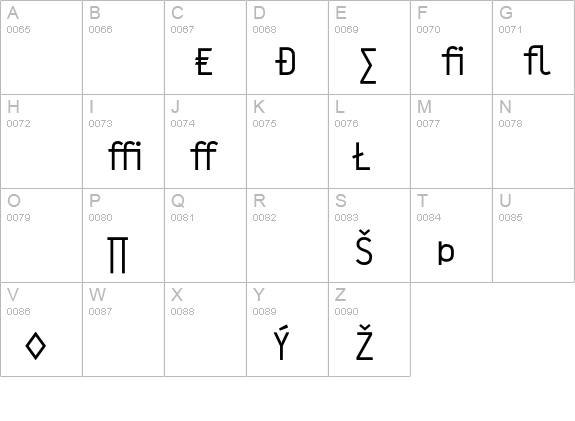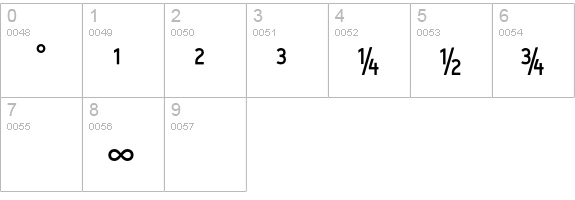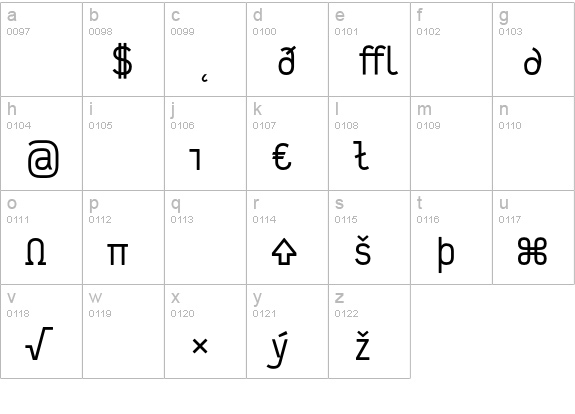
Typestar-NormalExpert Font Details
Typestar-NormalExpert is a versatile and elegant font that combines sophistication with legibility. This font is perfect for any project that requires a clean and professional look, from branding and advertising to web design and print materials. With its balanced letterforms and subtle curves, Typestar-NormalExpert exudes a timeless charm that is both modern and classic. The clarity of each character ensures optimal readability, making it suitable for a wide range of applications. What sets Typestar-NormalExpert apart is its unique blend of style and accessibility. Its clean lines and crisp edges make it easy on the eyes, while its expertly crafted details add a touch of sophistication. Whether used for headlines, body text, or signage, this font will make a lasting impression. And the best part? Typestar-NormalExpert is available for free download exclusively at FontsMarket.com. This means you can enjoy the benefits of this exceptional font without any cost. So why wait? Enhance your designs with the elegance and versatility of Typestar-NormalExpert today!